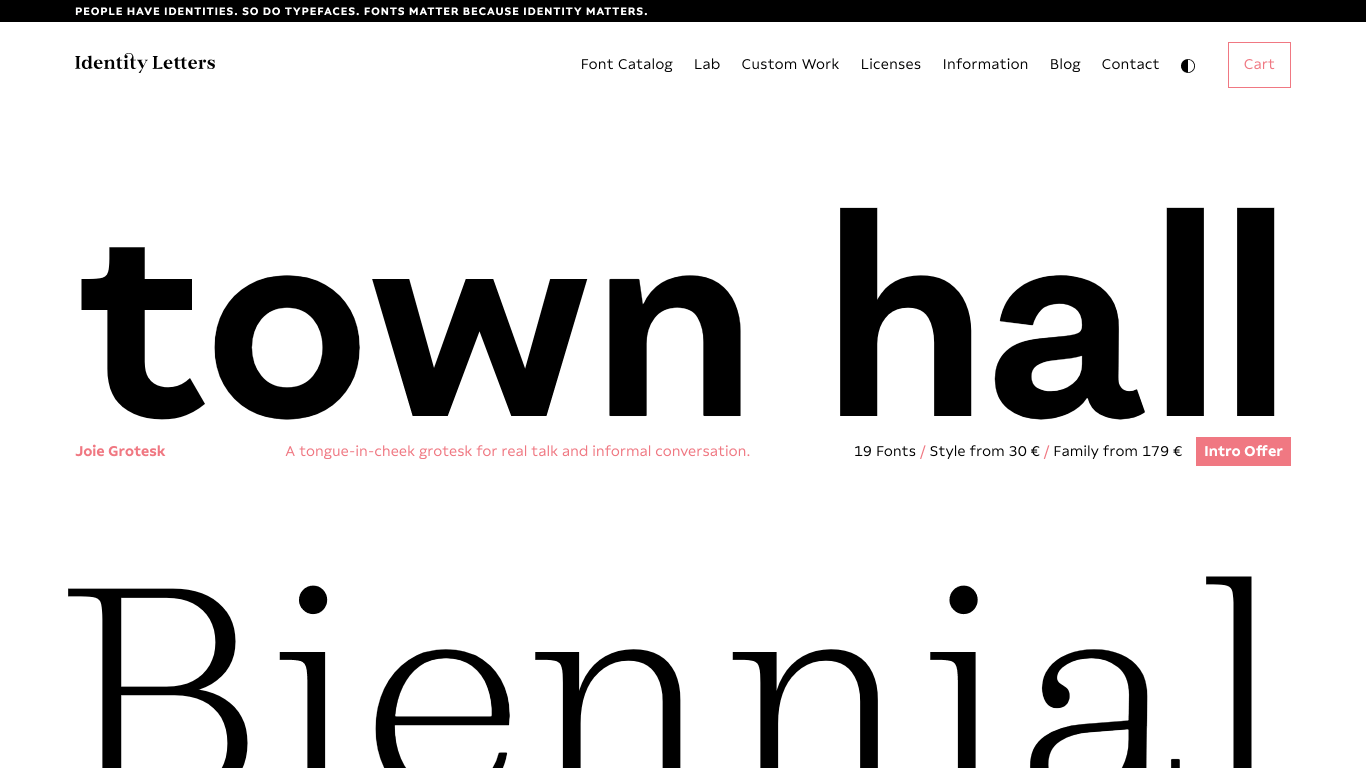
Identity Letters
Germany
2020
Identity Letters is a boutique type foundry established in 2020 by German designer Moritz Kleinsorge. Located near the Dutch border, the foundry focuses on producing high-quality, modern fonts with simple licensing and tailored corporate solutions. Identity Letters is known for its clean aesthetic and versatile type systems.